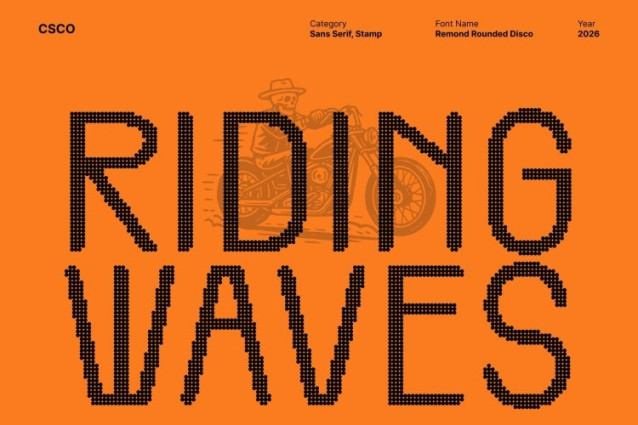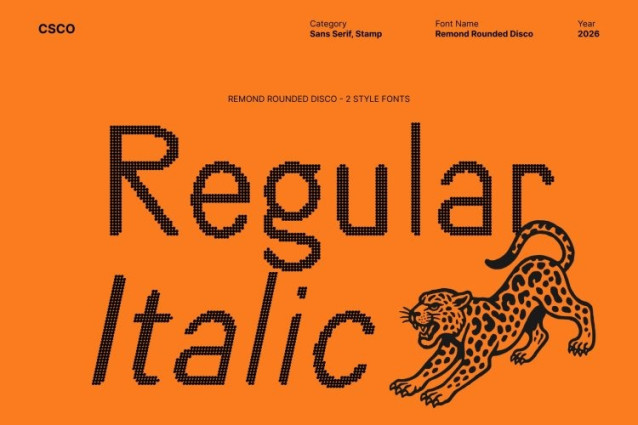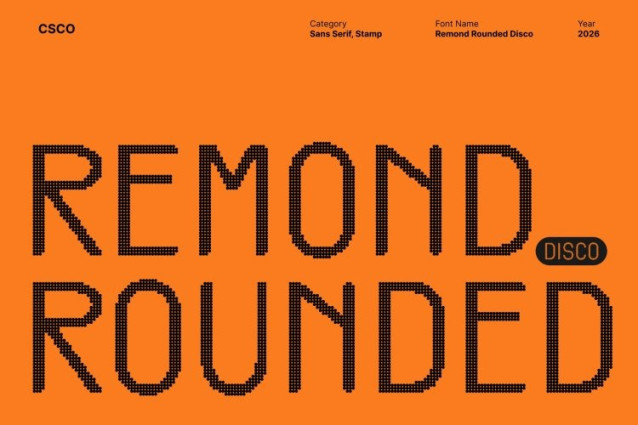
Remond Rounded Disco Font
Remond Rounded Disco Font This is a soft, condensed sans serif typeface designed to feel welcoming and easygoing, with a subtle disco-inspired personality. Its rounded structure and compact proportions create a cheerful, modern look that feels both approachable and visually engaging.
Low Contrast for Smooth Readability
With its low-contrast construction, delivers excellent legibility across screen and print. The balanced strokes allow text to flow naturally, ensuring clarity while maintaining a relaxed and friendly tone.
Warm, Radiant Character
Rounded edges and gentle curves give this font a warm, human feel. This font radiates friendliness like a smile in typographic form making it ideal for designs that aim to connect emotionally with their audience.
Versatile for Modern Design Needs
From branding and web interfaces to packaging and editorial layouts, adapts effortlessly. Its condensed form saves space, while its soft personality keeps layouts lively and inviting.